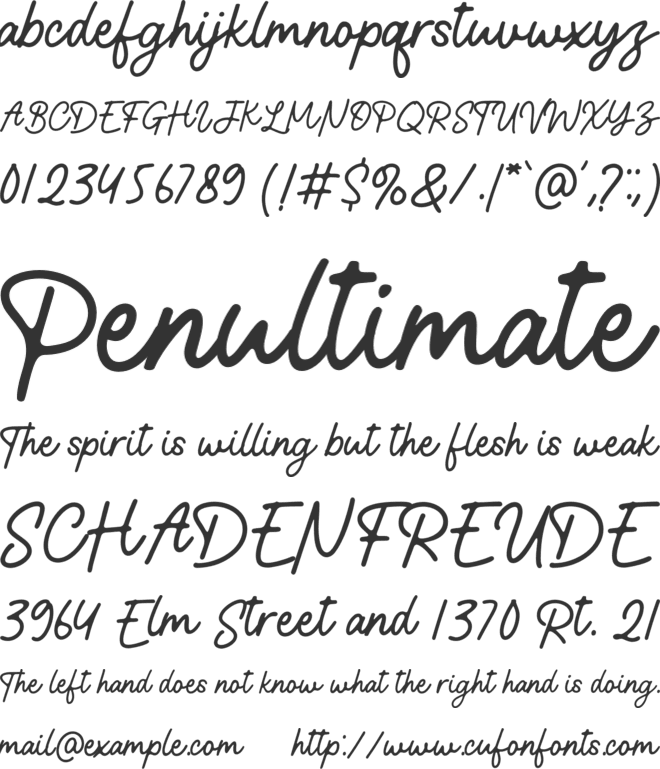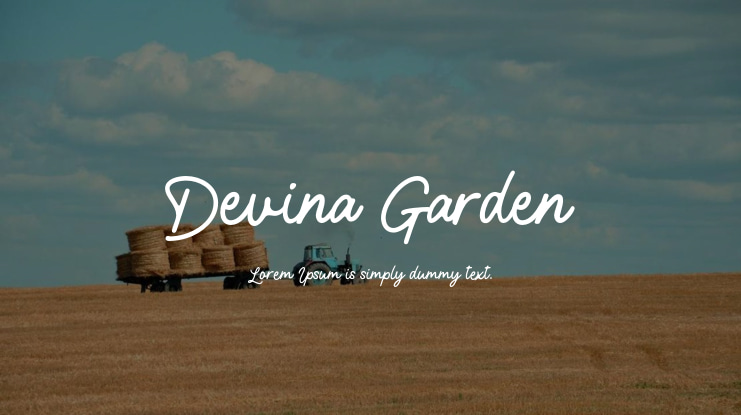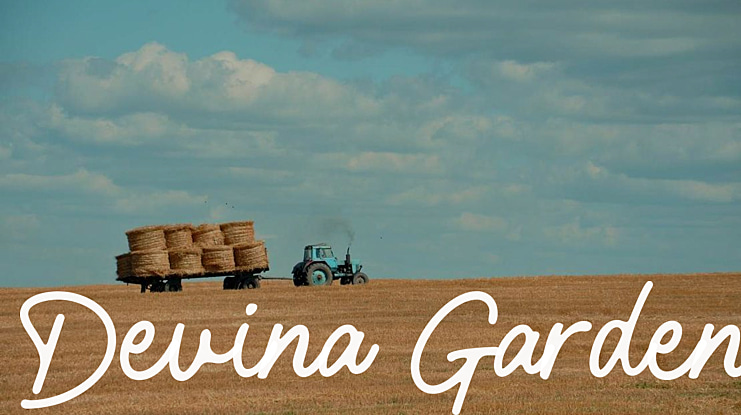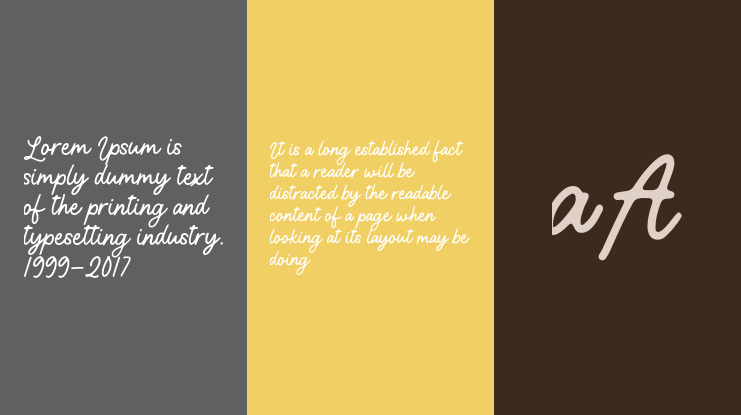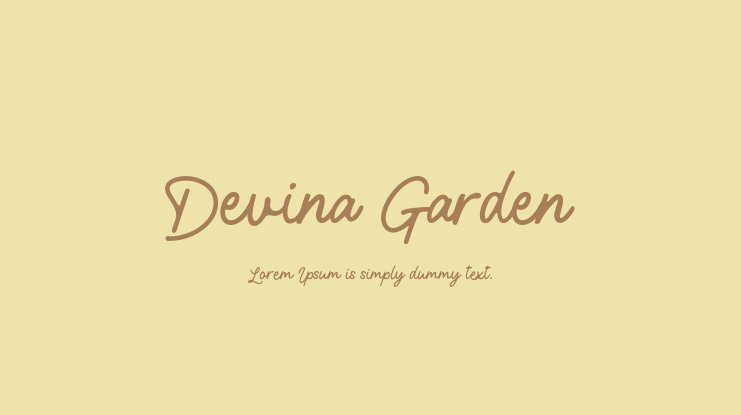
Devina Garden Font
Randi Ilhamsyah Muhammad Muammar
Devina Garden is a sans script font made with a modern handwriting style, this font is equipped with uppercase, lowercase, symbols, multi-language and alternates.